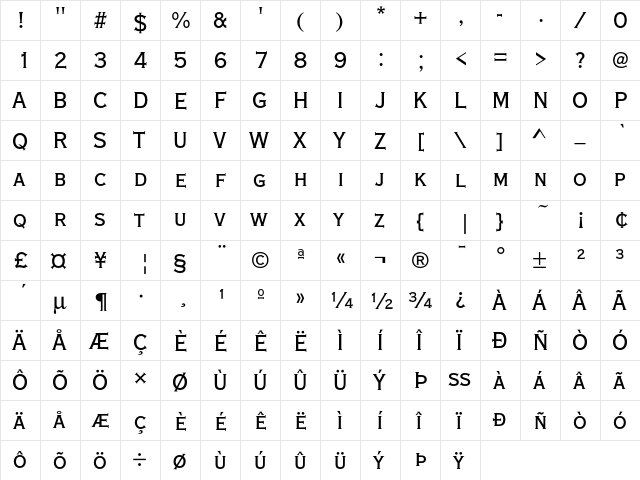
CoppeTMedCon Regular
Design Context for CoppeTMedCon Typeface
CoppeTMedCon is a composed and adaptable typeface that performs quietly and consistently across a wide range of design contexts.